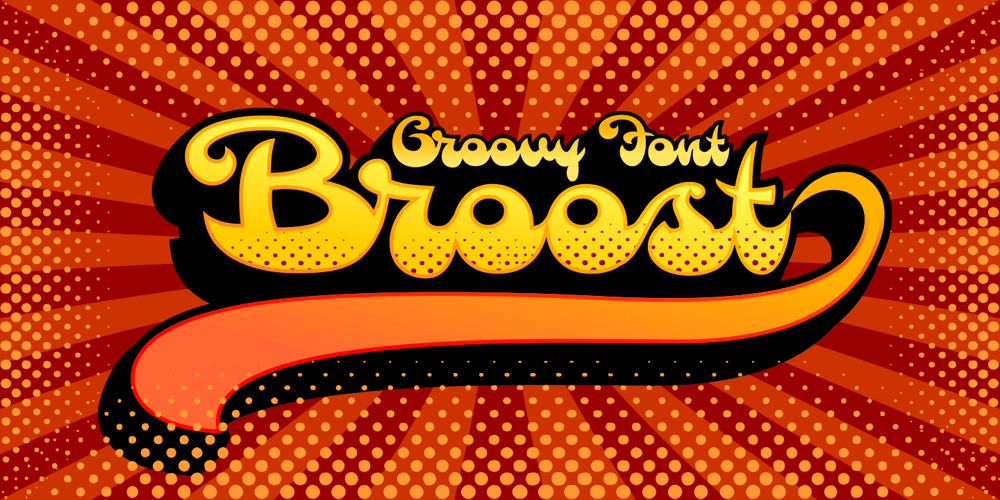
Broost Font Family was designed by Ahmad Zulfikar Ali and published by ZetDesign. Broost contains 2 styles and family package options. Broost is a groovy font that gives you a bold feel with sharp, bold strokes at each end of the letter. This font also gives a relaxed and cheerful impression to each of your works. very suitable for holiday design materials, parties, music, games, and more.